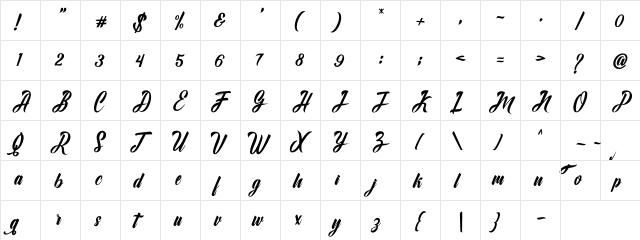
Alligator Regular
Design Context for Alligator Typeface
Alligator is a composed and adaptable typeface that performs quietly and consistently across a wide range of design contexts.